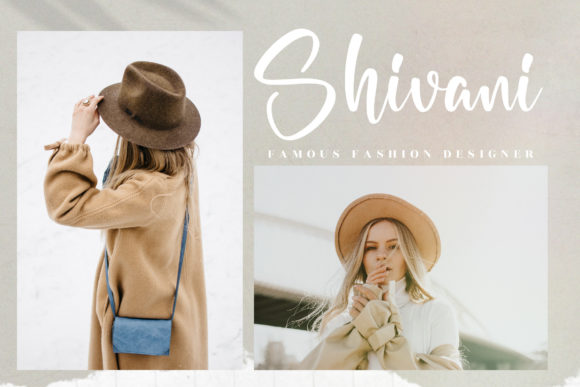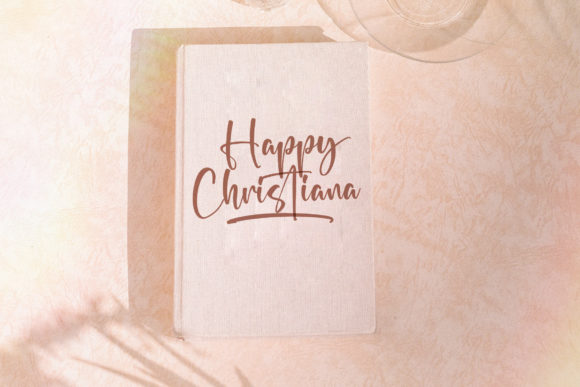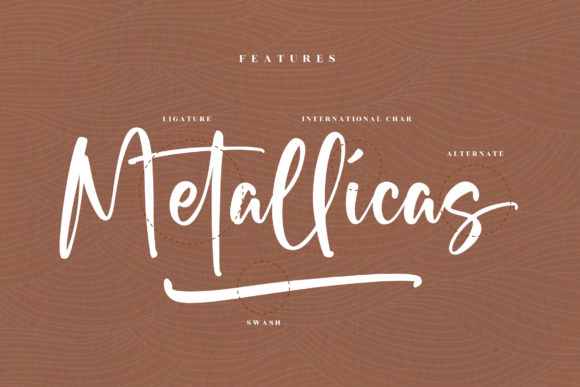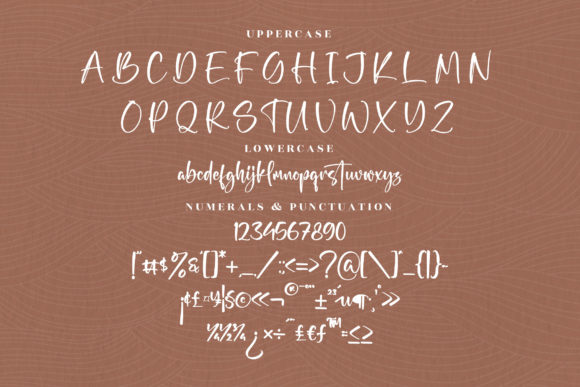
About Happy Christiana Font
Happy Christiana is a beautiful and flowing script font. It is PUA encoded which means you can access all of the glyphs and swashes with ease!